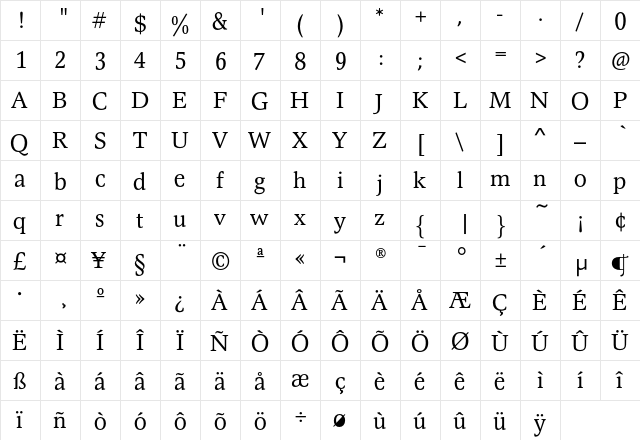
MagnaEF Light Font Preview
MagnaEF Light
Design Context for MagnaEF Typeface
MagnaEF is a composed and adaptable typeface that performs quietly and consistently across a wide range of design contexts. Its slender proportions lend an understated elegance to any composition.